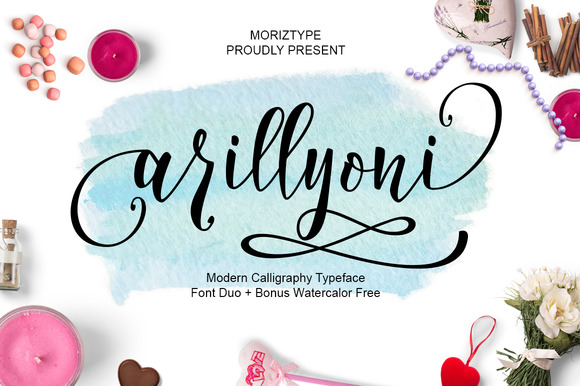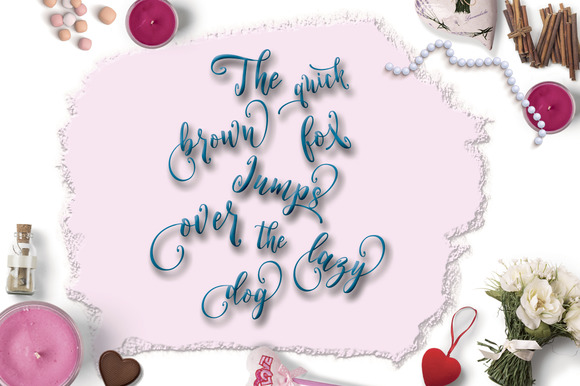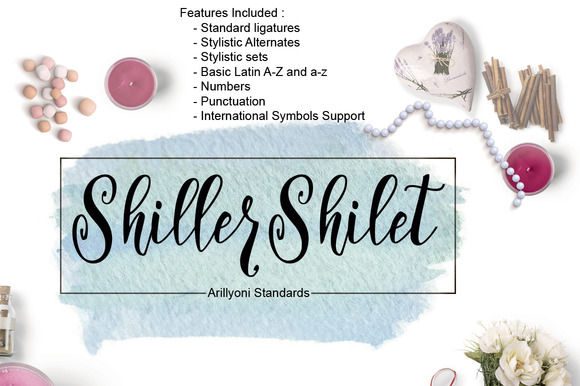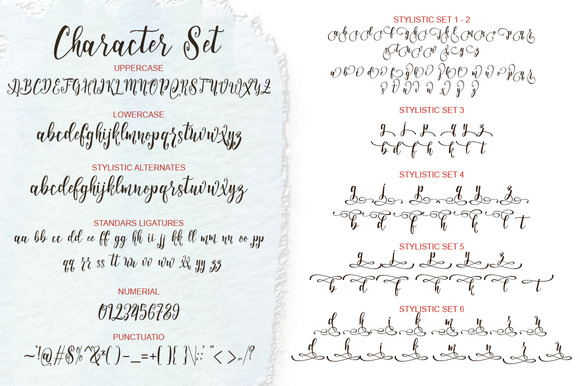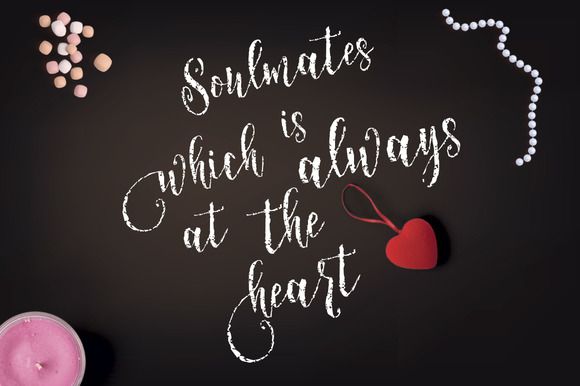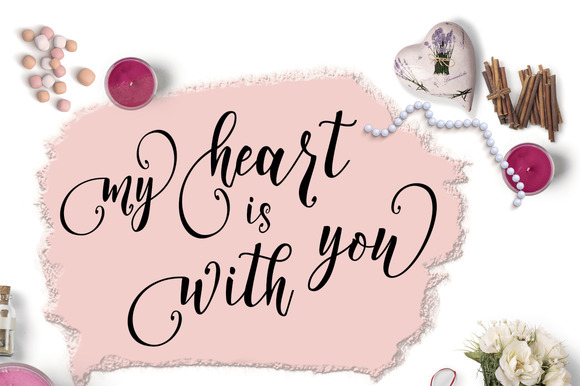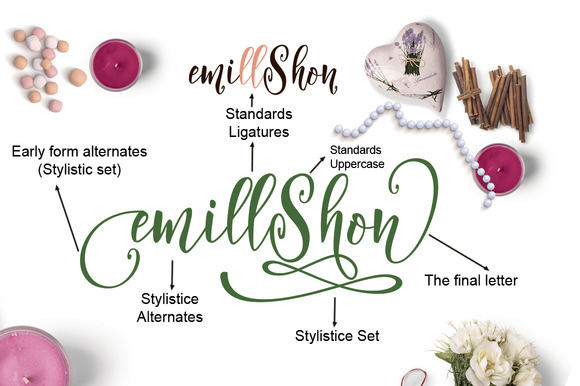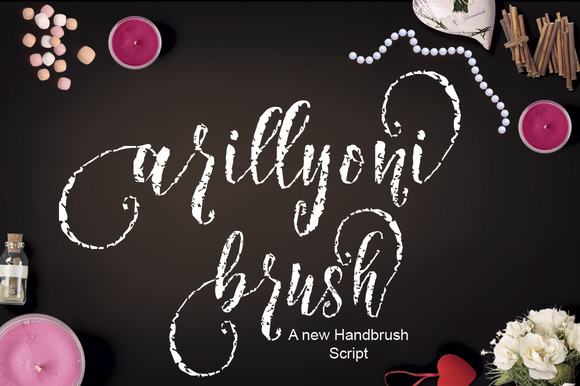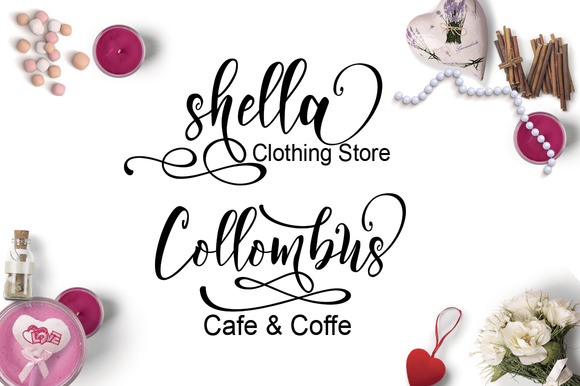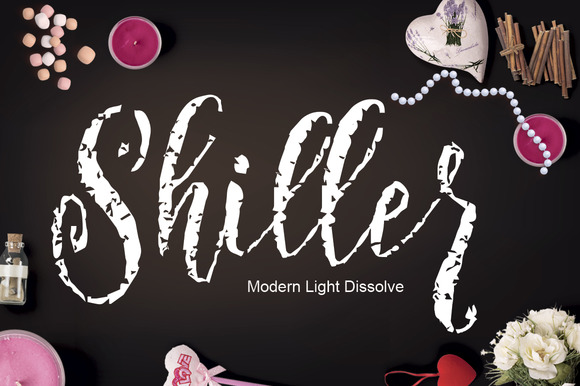
Arillyoni Script Font
About Arillyoni Script Font
The Arillyoni Font Duo is a fresh modern duo that consist out of 2 fonts:
Arillyoni Script – A stunning handwritten font packed with 439 glyphs
Arillyoni Brush – A rough brush version of the Arillyoni Script font